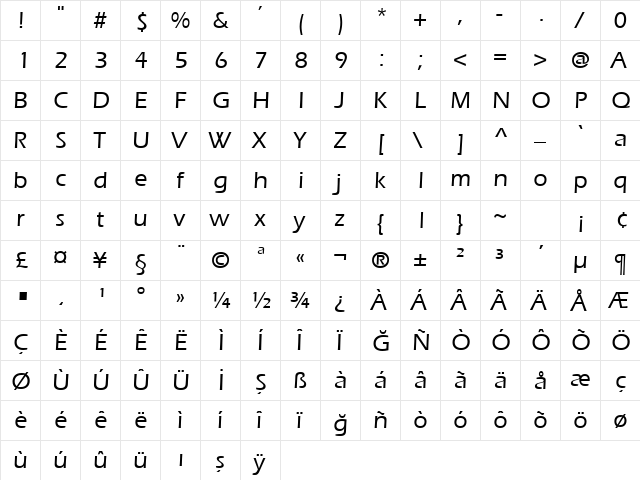
TR ErieLight Bold
Design Context for TR ErieLight Typeface
TR ErieLight offers clean, dependable letterforms without strong stylistic allegiance, making it a practical choice for designers who need flexibility. Its bold stroke weight gives it real presence on the page.